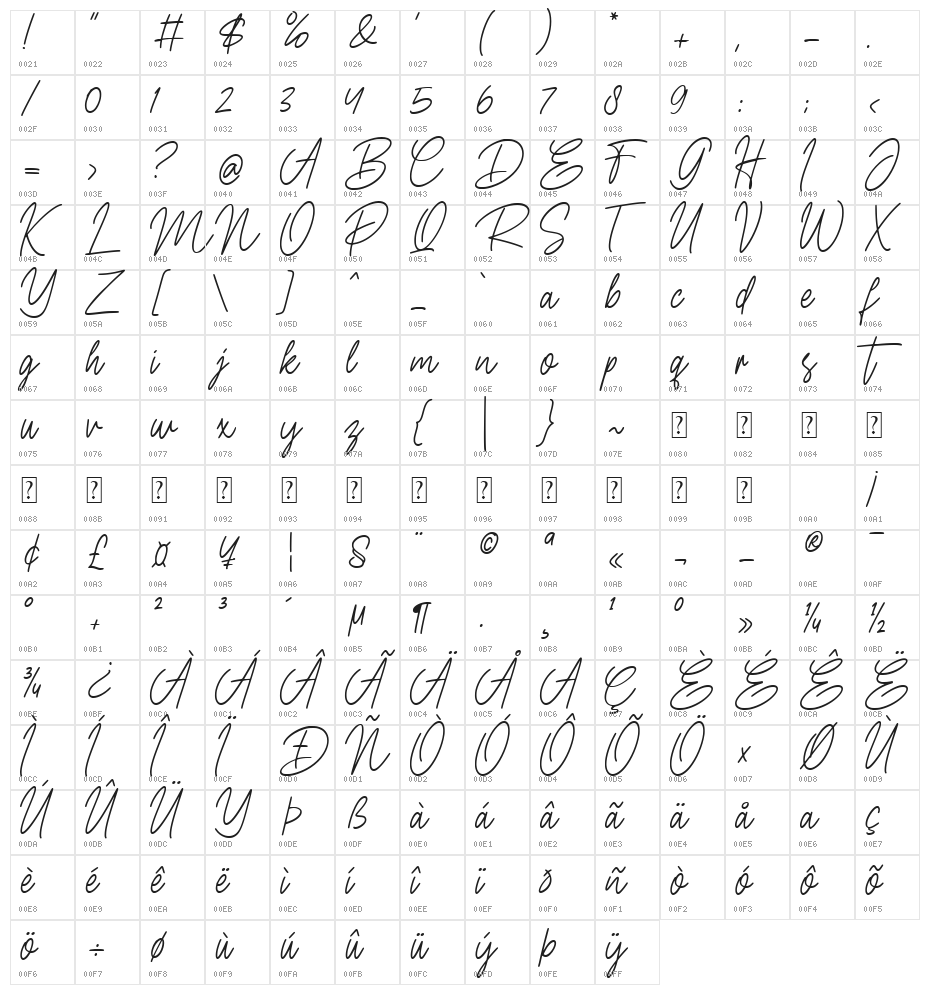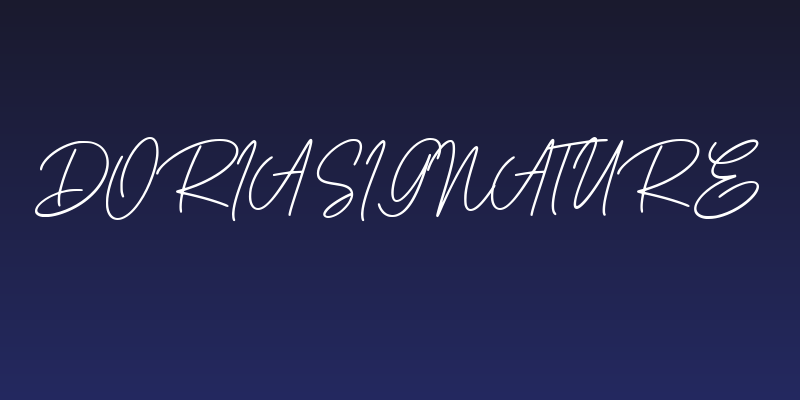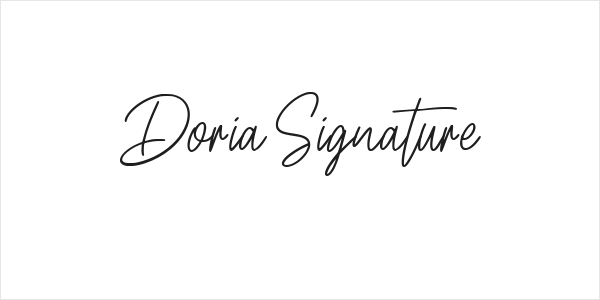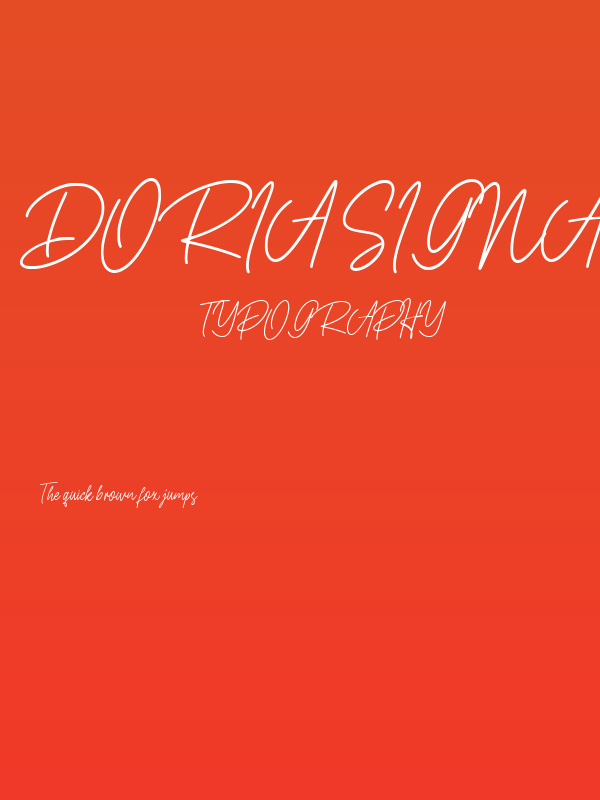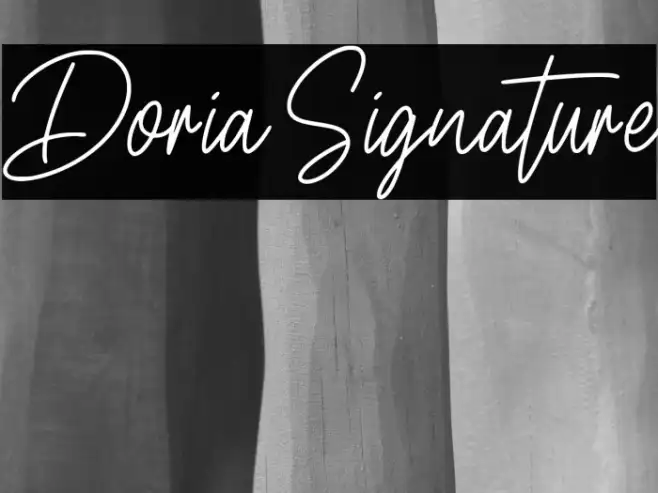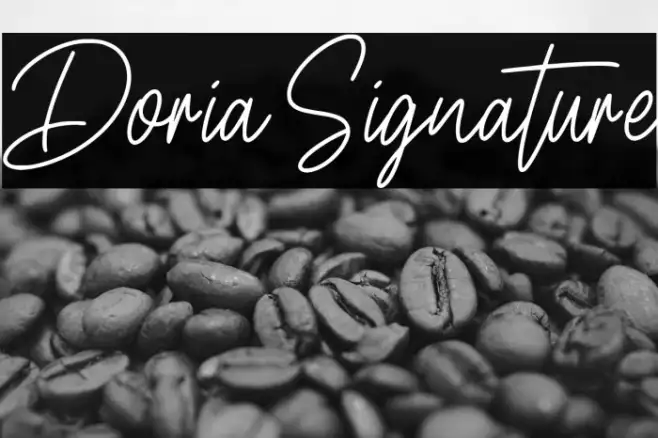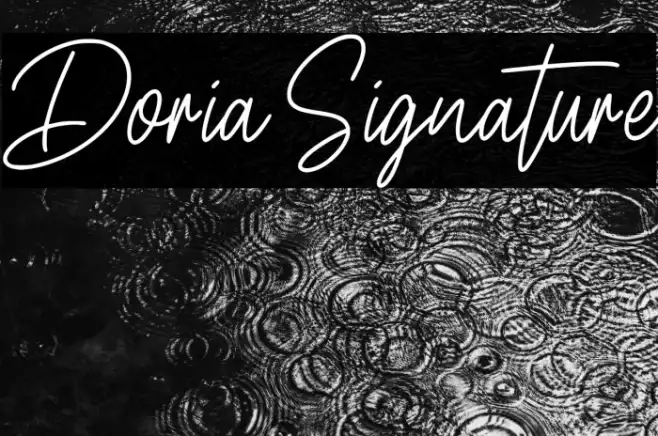
Doria Signature Font
Doria Signature Description
This font exudes a sense of elegance and fluidity, characterized by its cursive, handwritten style. The letters are connected with smooth, flowing strokes, creating a seamless and sophisticated appearance. The uppercase letters maintain a consistent height, while the lowercase letters exhibit a natural slant, enhancing the script-like quality. The numerals are distinct yet harmonize well with the overall style, and the special characters are crafted with the same attention to detail. This font is ideal for projects that require a personal touch, such as invitations, greeting cards, or branding materials that aim to convey a sense of luxury and refinement.
| Overall Style | Elegant, Handwritten |
| Proposed Projects | Ideal for wedding invitations, personal branding, luxury product packaging, and elegant stationery. |